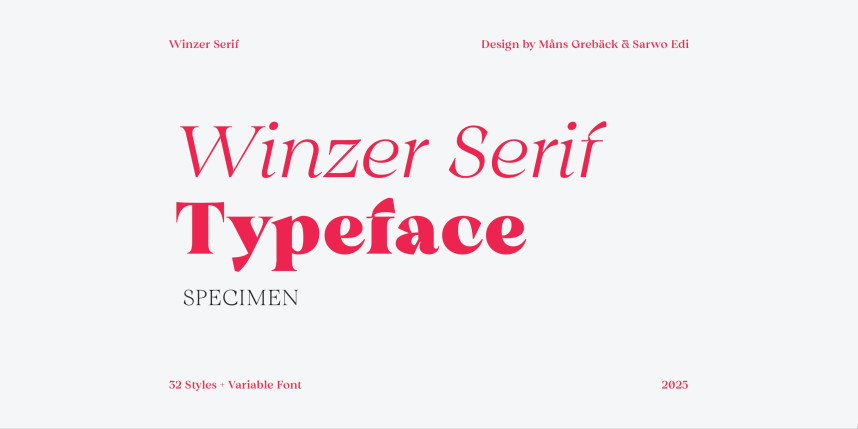
Winzer Serif Font
Winzer Serif Font is a high-contrast serif typeface that merges classical elegance with bold modernity. Designed for display and editorial purposes, it draws inspiration from transitional forms but adds a strong personal character through sculptural details and expressive tension.
The family spans a wide typographic spectrum, from the delicate Thin to the imposing Black, with each weight capturing a distinct tone—from whispering refinement to dramatic presence. Sharp terminals, deep vertical contrast and sweeping curves create a voice that’s both poised and powerful.
The Optical styles enhance legibility in smaller sizes, with adjusted proportions and softened transitions. Meanwhile, the Italic and Slanted styles introduce dynamism and rhythm, leaning the message forward without compromising the serif’s structural grace.
Winzer Serif is equally at home in glossy fashion spreads, book covers, and striking titles, where aesthetic sophistication is key.